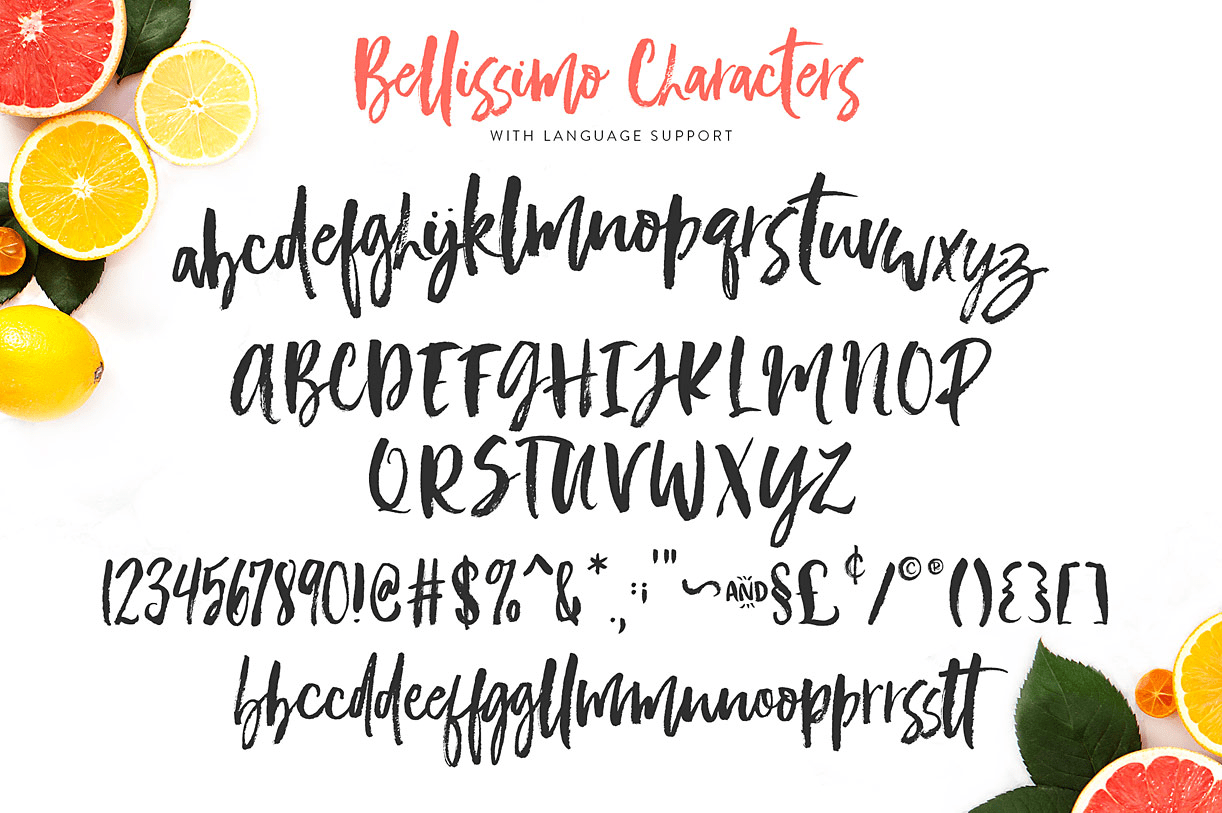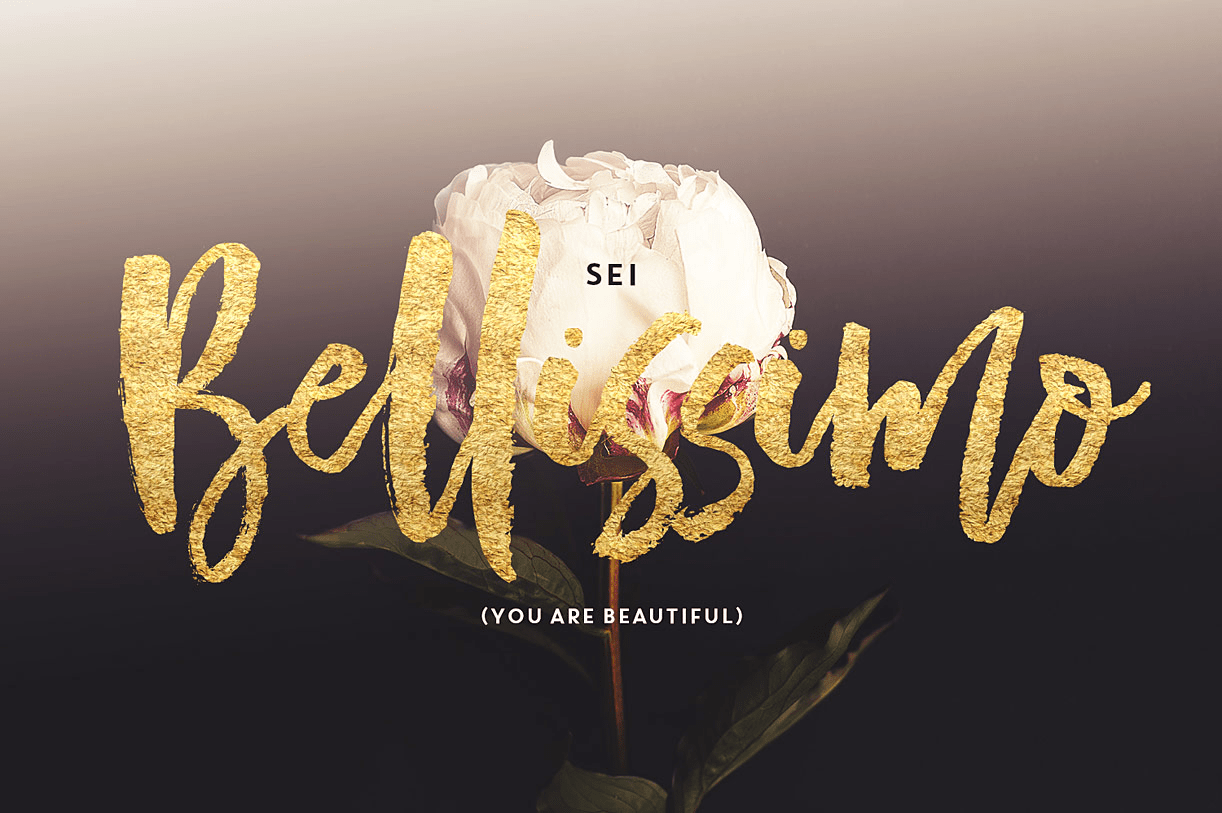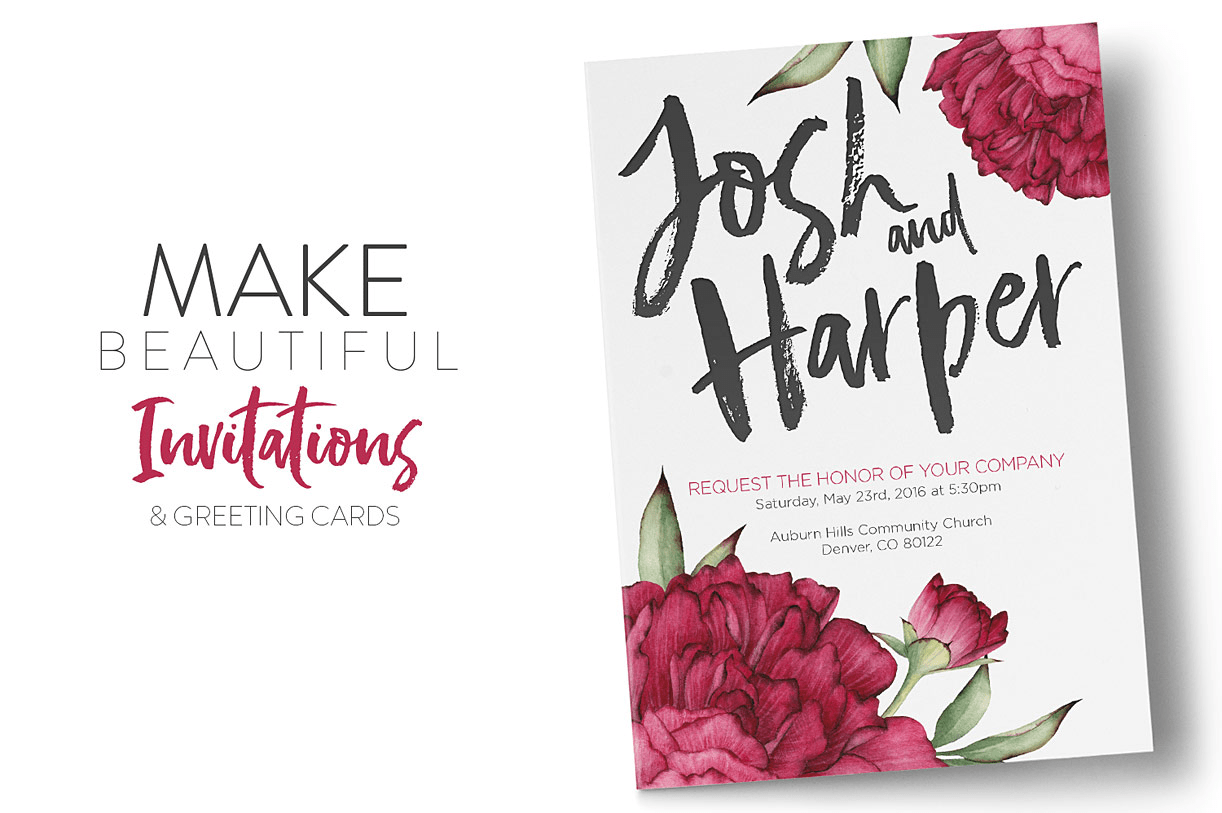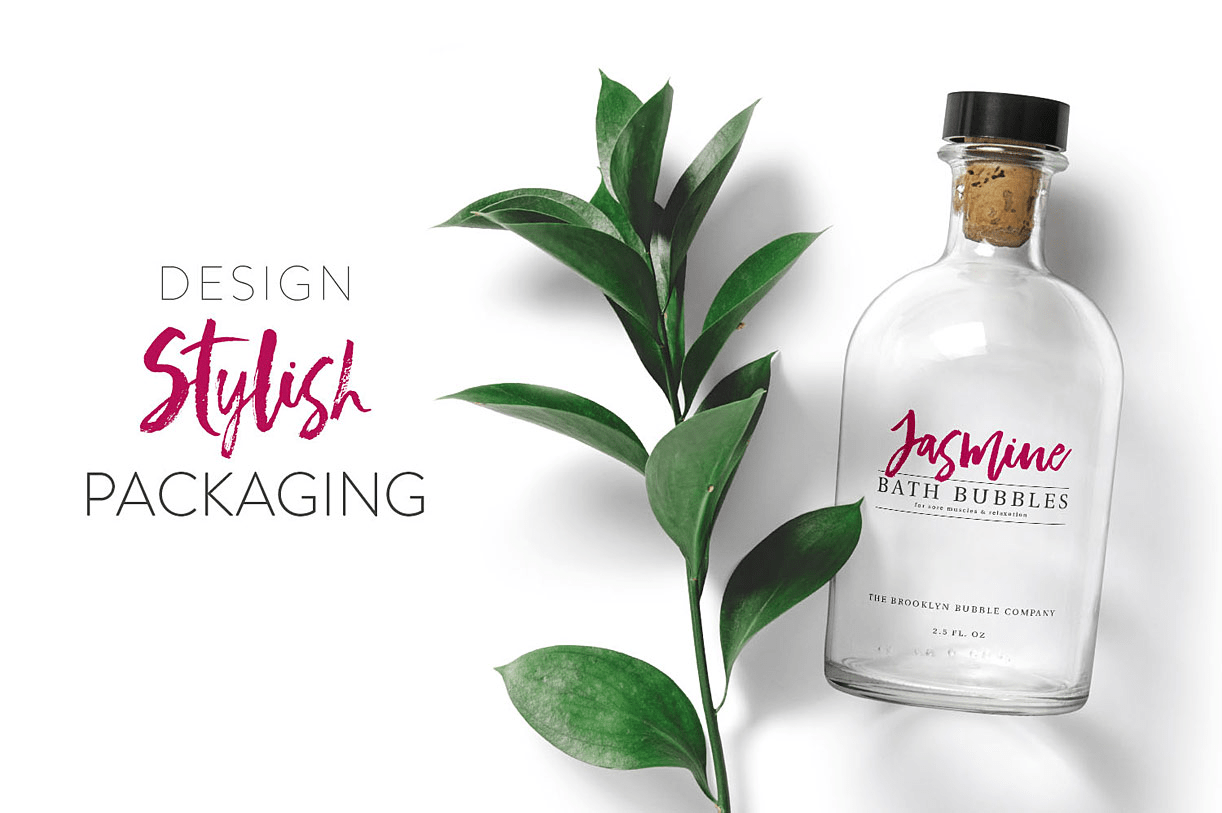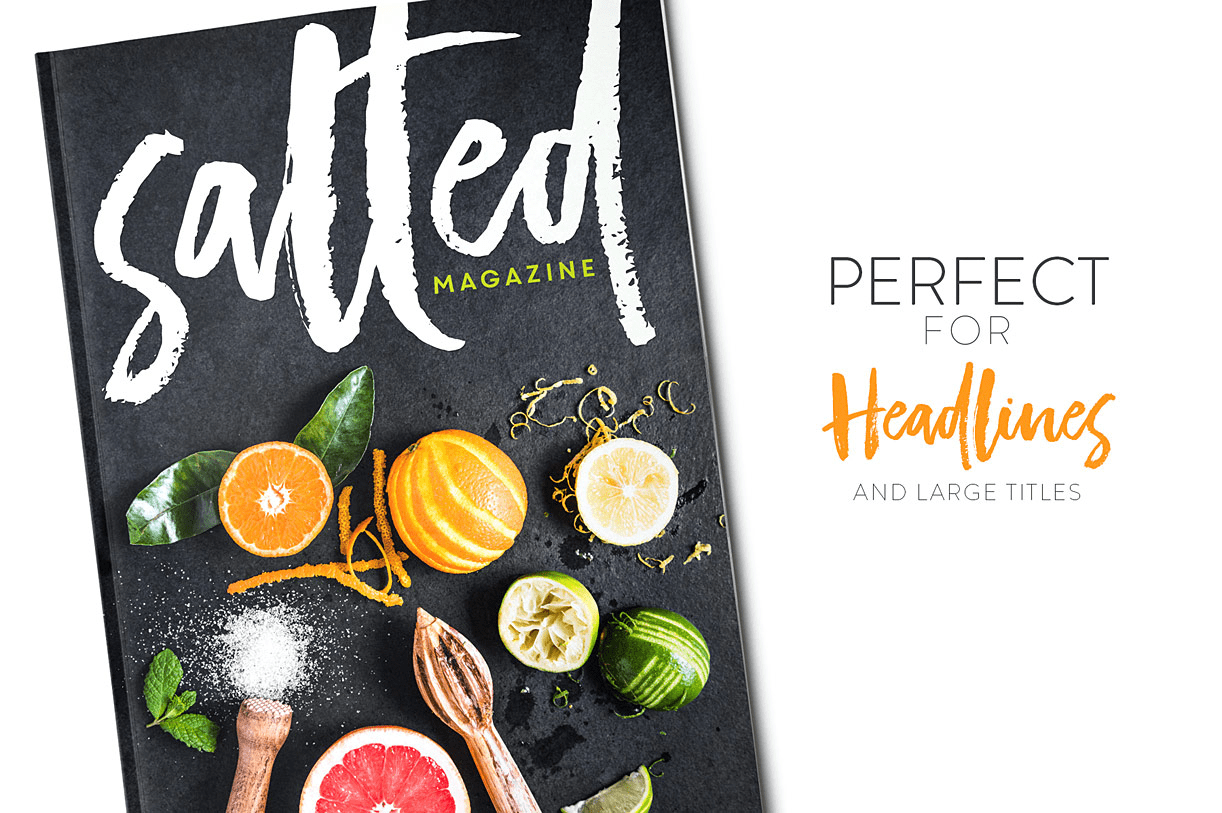
About Bellissimo
Say Ciao to Bellissimo! A trendy, hand-brushed font, designed with branding in mind. Bellissimo looks gorgeous on logos, websites, invitations, greeting cards, magazines, business cards, packaging and more! Bellissimo Supports: English, Catalan, Croatian,…